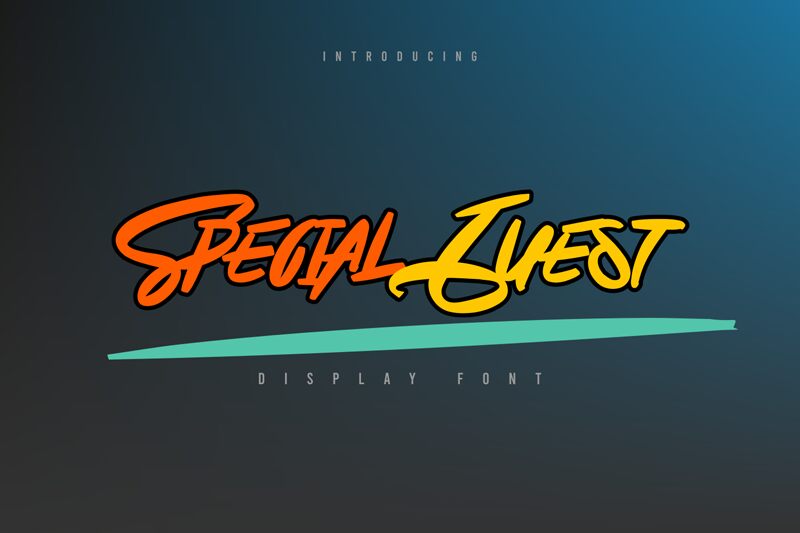
Special Guest, designed by Mozyen Studio, is a trendy and urban handwritten font. With its semi-bold weight and semi-expanded width, it adds a touch of edginess to any design.
Perfect for t-shirts, sportswear, and clothing brands looking for a cool and stylish vibe. It also works well for eye-catching logos that want to stand out from the crowd. Additionally, Special Guest is an excellent choice for dynamic advertisements that need to grab attention and leave a lasting impression.